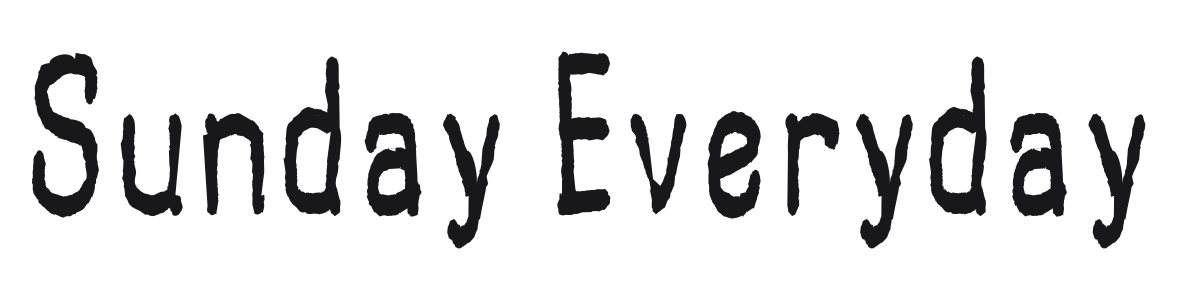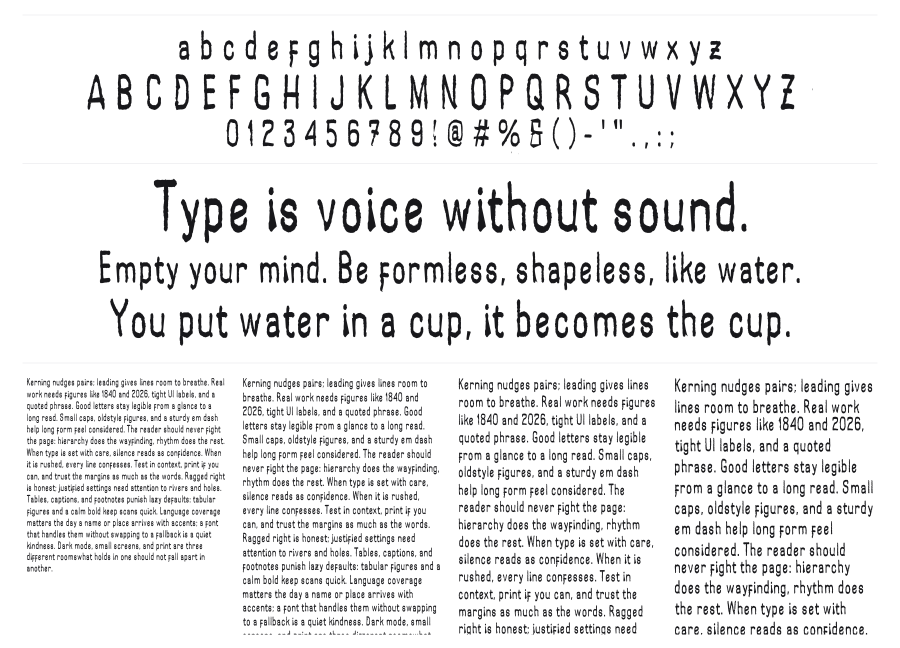
Sunday Everyday
by Yosan Studio
Sunday Everyday is a distressed sans-serif built on rough, eroded edges that evoke hand-stamped rubber type or weathered woodblock printing. The near-monoweight strokes are interrupted by irregular notches and uneven contours, giving the font an organic, lived-in feel without collapsing into illegibility. It carries the energy of DIY print culture: zines, gig posters, and anything meant to feel like it came from a real place.